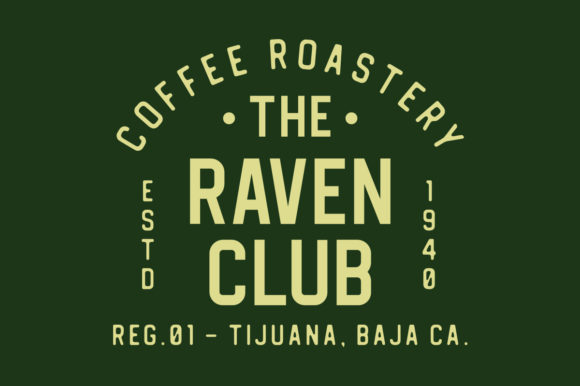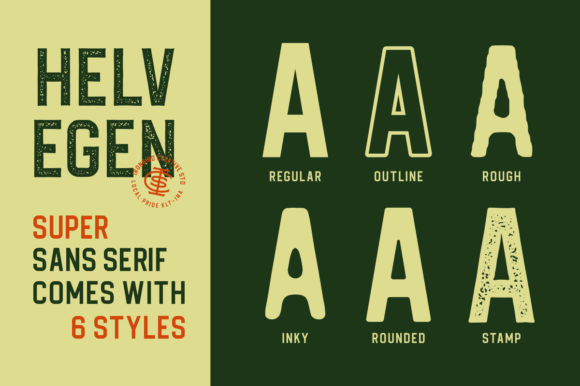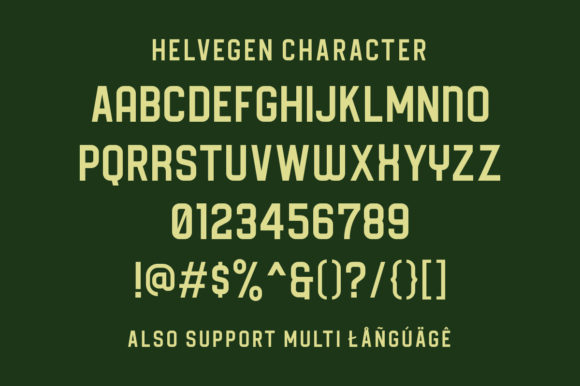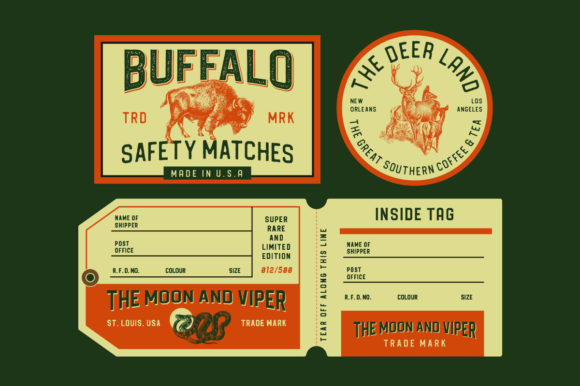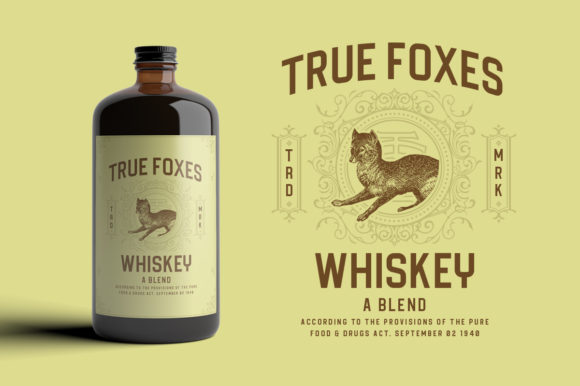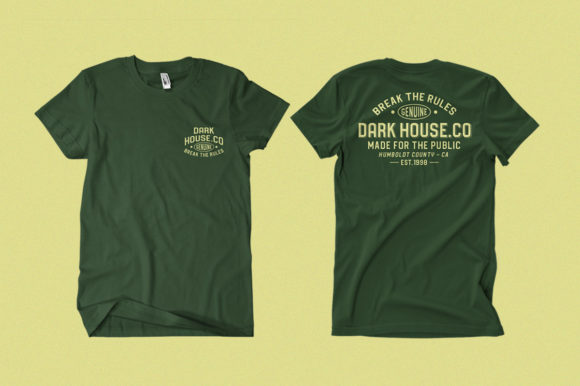
Introduction to Helvegen Font
Carefully Crafted, Helvegen is a bold vintage-themed sans serif font that comes in 6 incredible versions.
Get inspired by this beautiful and unique tyoeface .
Key Features of Helvegen Font
Why Choose Helvegen Font?